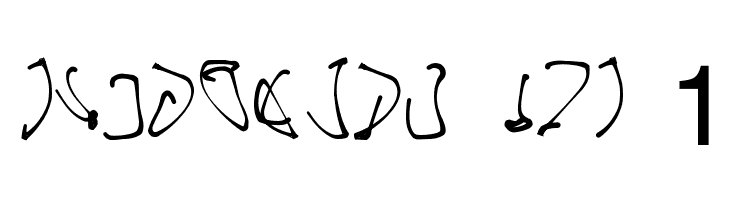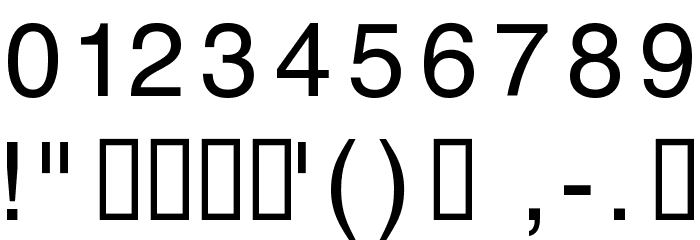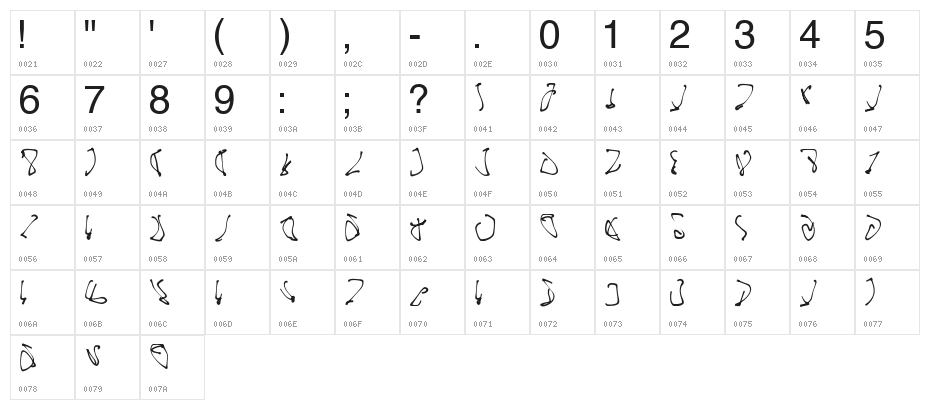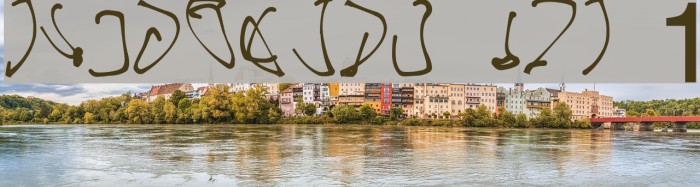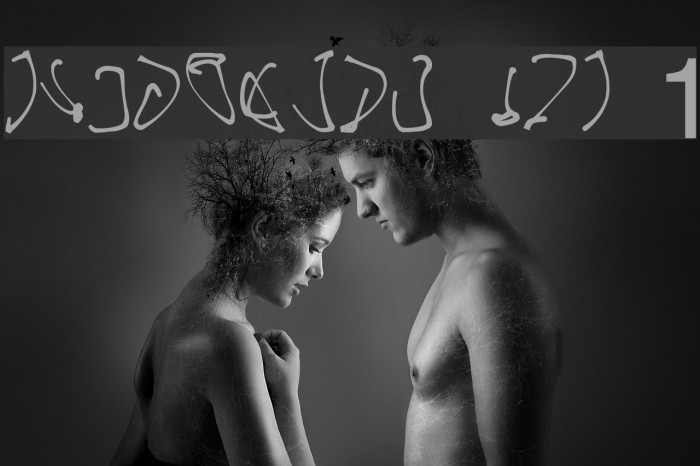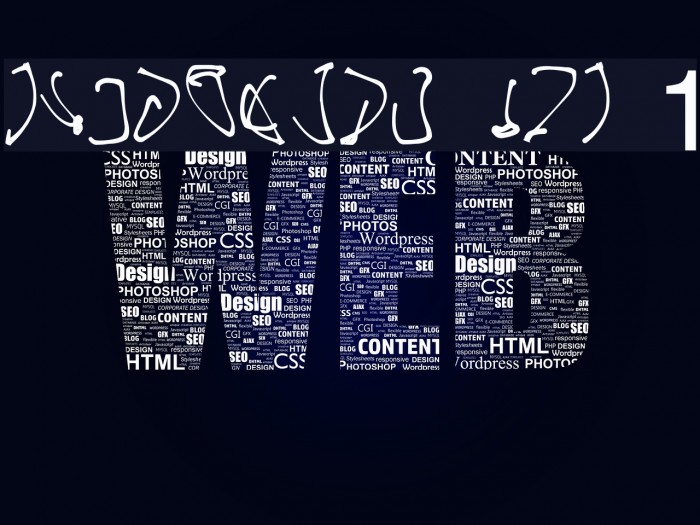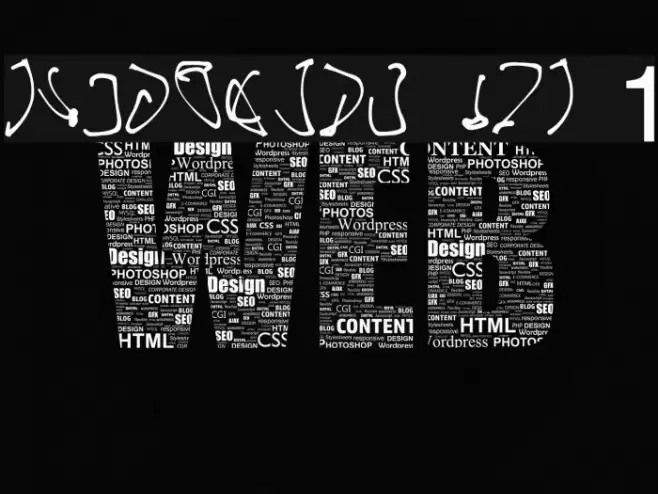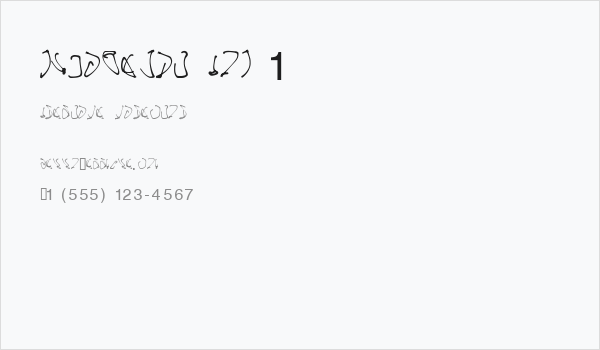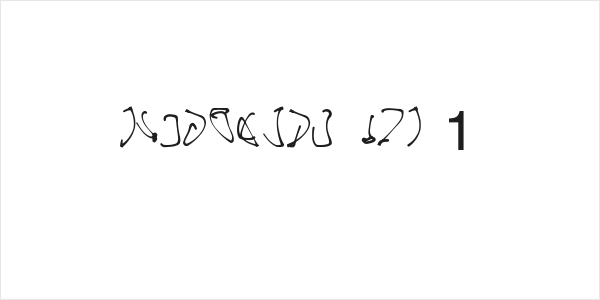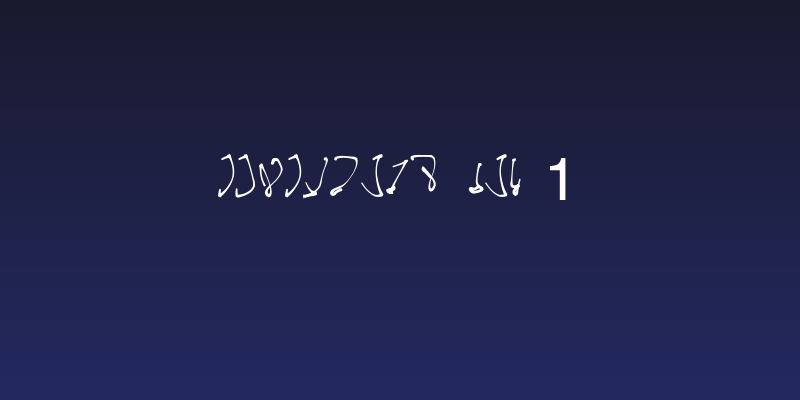
InsideOut Cow 1 Font
InsideOut Cow 1 Description
This font features a highly abstract and artistic style, with each character appearing as a unique, hand-drawn symbol. The uppercase and lowercase letters are designed with a fluid, calligraphic touch, giving them an organic and dynamic appearance. The numbers are more structured, providing a stark contrast to the letters with their bold and clear lines. Special characters maintain the artistic flair, adding to the overall whimsical and creative feel. The font's design is reminiscent of abstract art, making it suitable for projects that require a distinctive and unconventional look.
| Overall Style | Artistic, Abstract |
| Use Case | Logos, Posters, Creative Projects |
| Proposed Projects | Ideal for art projects, creative branding, unique invitations, and expressive posters. |